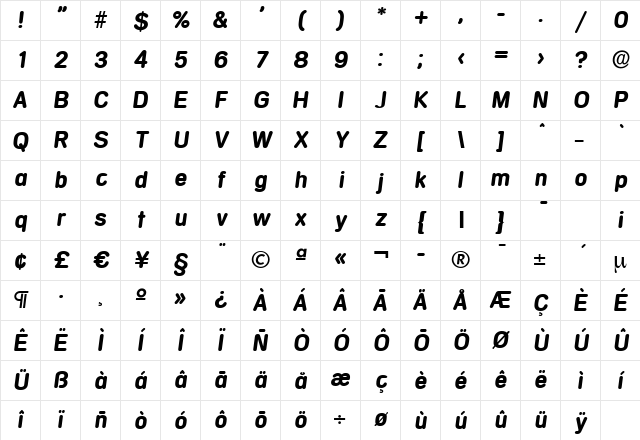
AndreasBecker Bold Italic
Design Context for AndreasBecker
AndreasBecker is a composed and adaptable typeface that performs quietly and consistently across a wide range of design contexts. The slanted form adds forward momentum and visual energy. Its bold stroke weight gives it real presence on the page.
Pro Tip: Use AndreasBecker for emphasis, pull quotes, and subheadings where its slanted energy can add rhythm to the layout.